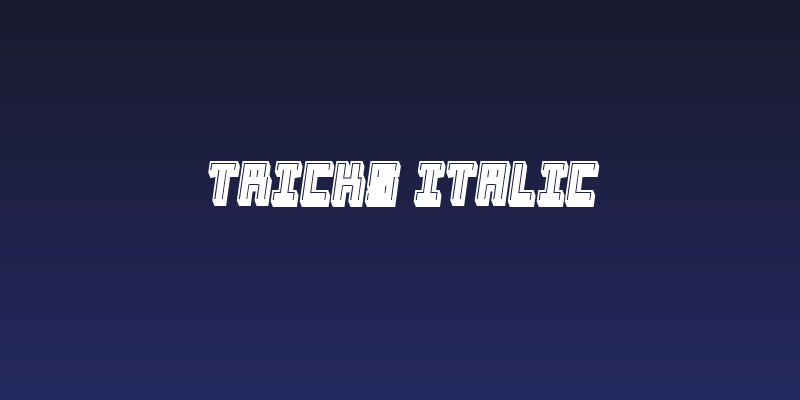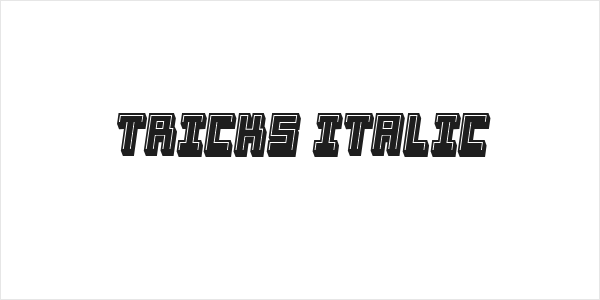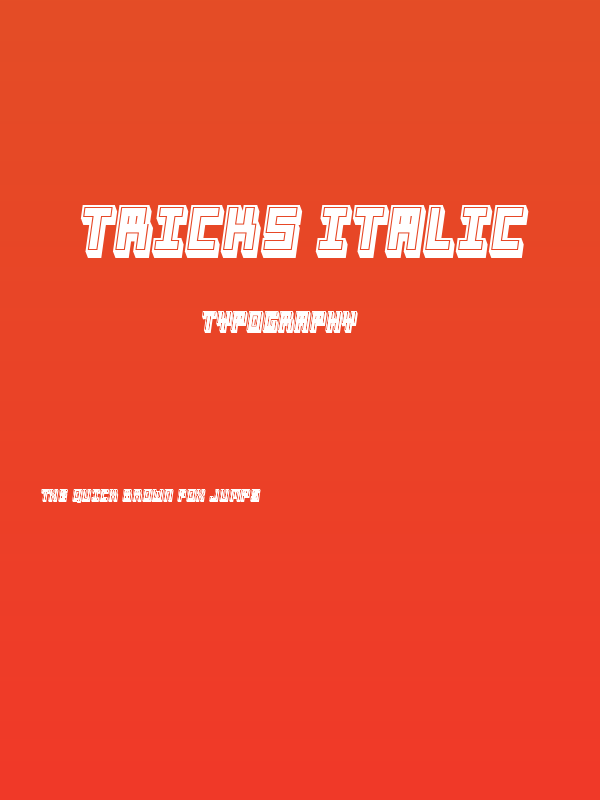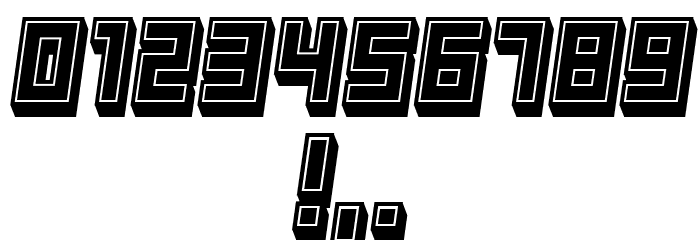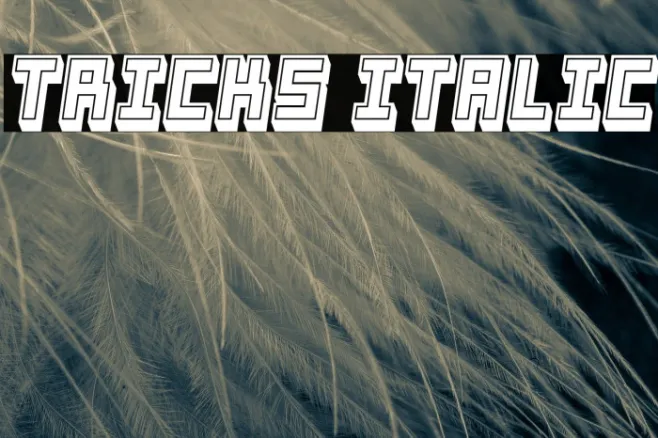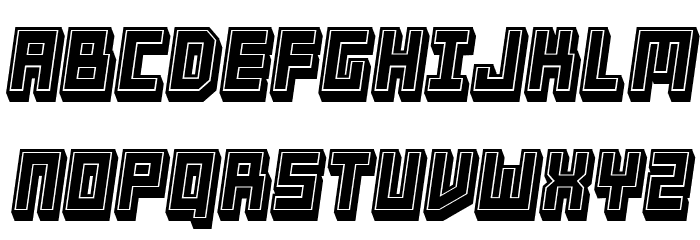
Tricks Italic Font
Tricks Italic Description
This font features a bold, three-dimensional design with a strong, geometric structure. Each character is outlined with a thick black border, creating a striking contrast that enhances its visibility. The letters are slightly italicized, adding a dynamic and forward-moving appearance. The font's blocky and angular style gives it a modern and futuristic feel, making it suitable for attention-grabbing headlines or titles. The numbers and special characters maintain the same bold and structured design, ensuring consistency across all elements.
| Proposed Projects | Ideal for use in video game titles, tech-related branding, or futuristic-themed posters. |